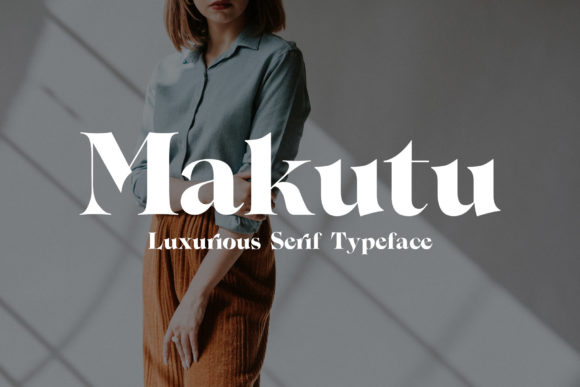
Prepare to step into a world of enchanting typography with Makutu, the peerless serif font crafted by the ingenious minds at HipFonts. This timeless masterpiece transcends mere aesthetics, evolving into an indispensable tool for branding. Its elegant curves and captivating strokes will elevate your designs, leaving an enduring impression that will resonate with your audience.
Makutu's versatility knows no bounds, effortlessly adapting to a kaleidoscope of creative endeavors. Whether you're gracing invitations with a touch of sophistication, adding a dash of allure to fashion magazines, or crafting captivating advertisements that command attention, Makutu will be your faithful companion. Its versatility extends to business cards, social media endeavors, and any creative pursuit you can conjure.
The Makutu font family is not merely a collection of characters; it's a symphony of ligatures, ready to transform your text into an enchanting melody. These exquisite ligatures dance across your designs, imbuing them with a bespoke elegance that will set your creations apart. As you craft your designs, you'll revel in the seamless flow of Makutu's characters, guided by the subtle grace of its ligatures.
Makutu is more than just a font; it's an investment in timeless style. Its enduring appeal ensures that your designs will stand the test of time, capturing hearts and minds for eons to come. With Makutu, you'll create not just logos or advertisements but masterpieces that will etch themselves into the annals of design history.
Don't settle for ordinary fonts that fade into oblivion. Embrace Makutu, the font that will ignite your creativity and propel your designs to unparalleled heights. Its beauty, versatility, and timeless elegance will empower you to create visual masterpieces that will captivate and inspire.